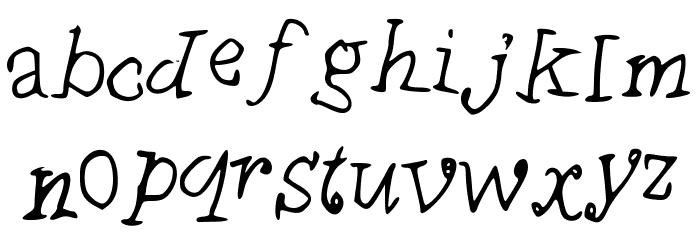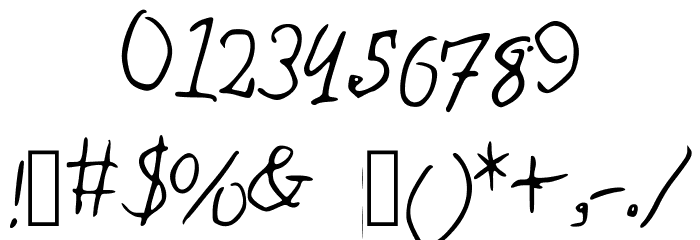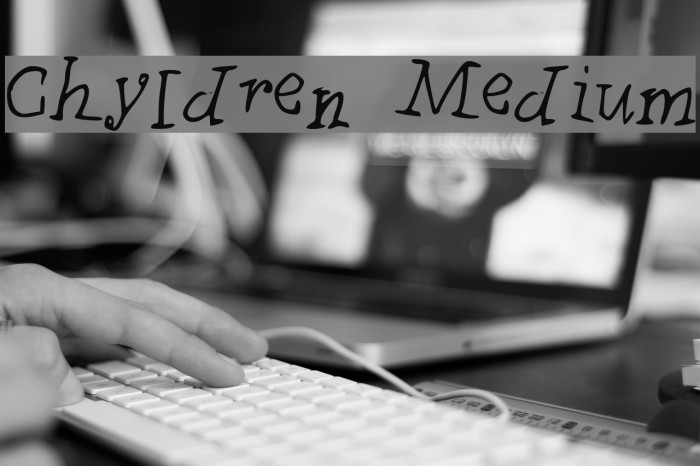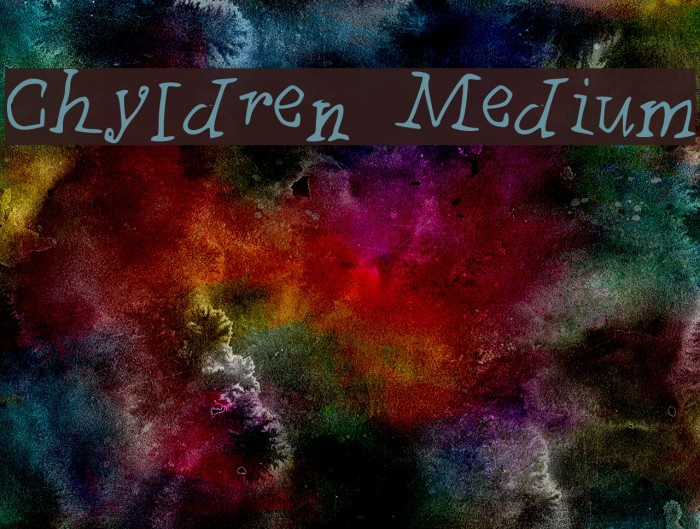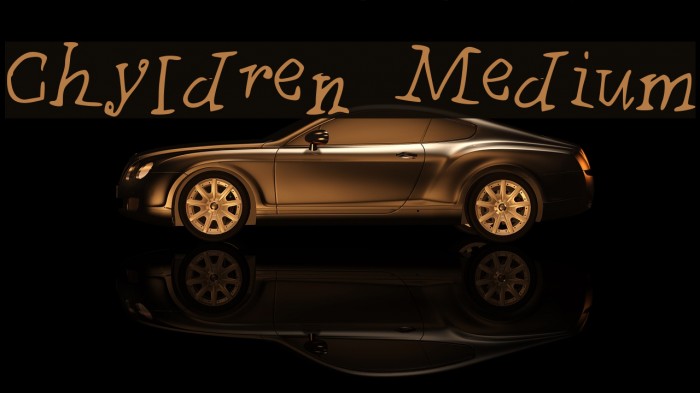
Chyldren Medium Font
This font features a playful and whimsical style, characterized by its uneven and slightly distorted letterforms. The uppercase letters exhibit a quirky charm with varying stroke widths and a hand-drawn appearance. The lowercase letters maintain this playful aesthetic, with some letters featuring unique loops and curves. The numerals are consistent with the overall style, offering a sense of fun and creativity. Special characters are included, adding versatility to the font's use. The overall design is reminiscent of a child's handwriting, making it ideal for projects that require a touch of innocence and creativity.
A playful, hand-drawn font with whimsical and uneven letterforms.
- Proposed Projects: Children's books, playful branding, creative posters, and educational materials.
- Overall Style: Playful
- Use Case: Headlines, Logos, Creative projects